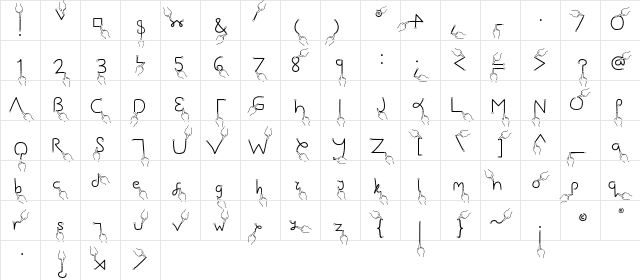
Gesture Regular Font Preview
Gesture Regular
Gesture Regular Font Details
| Foundry | GestureWorks |
| Designer | GestureWorks |
Design Context for Gesture Typeface
Gesture is a composed and adaptable typeface that performs quietly and consistently across a wide range of design contexts.